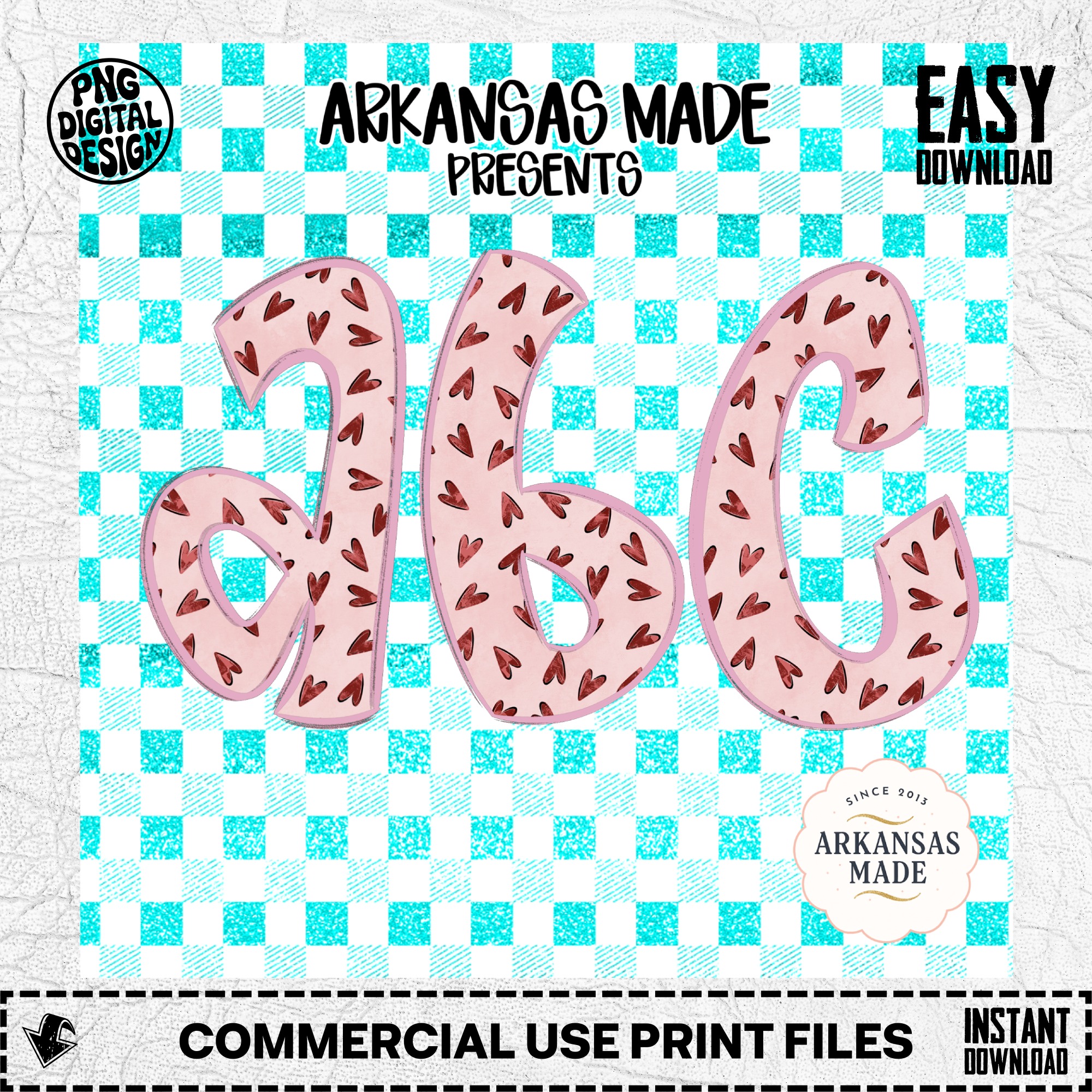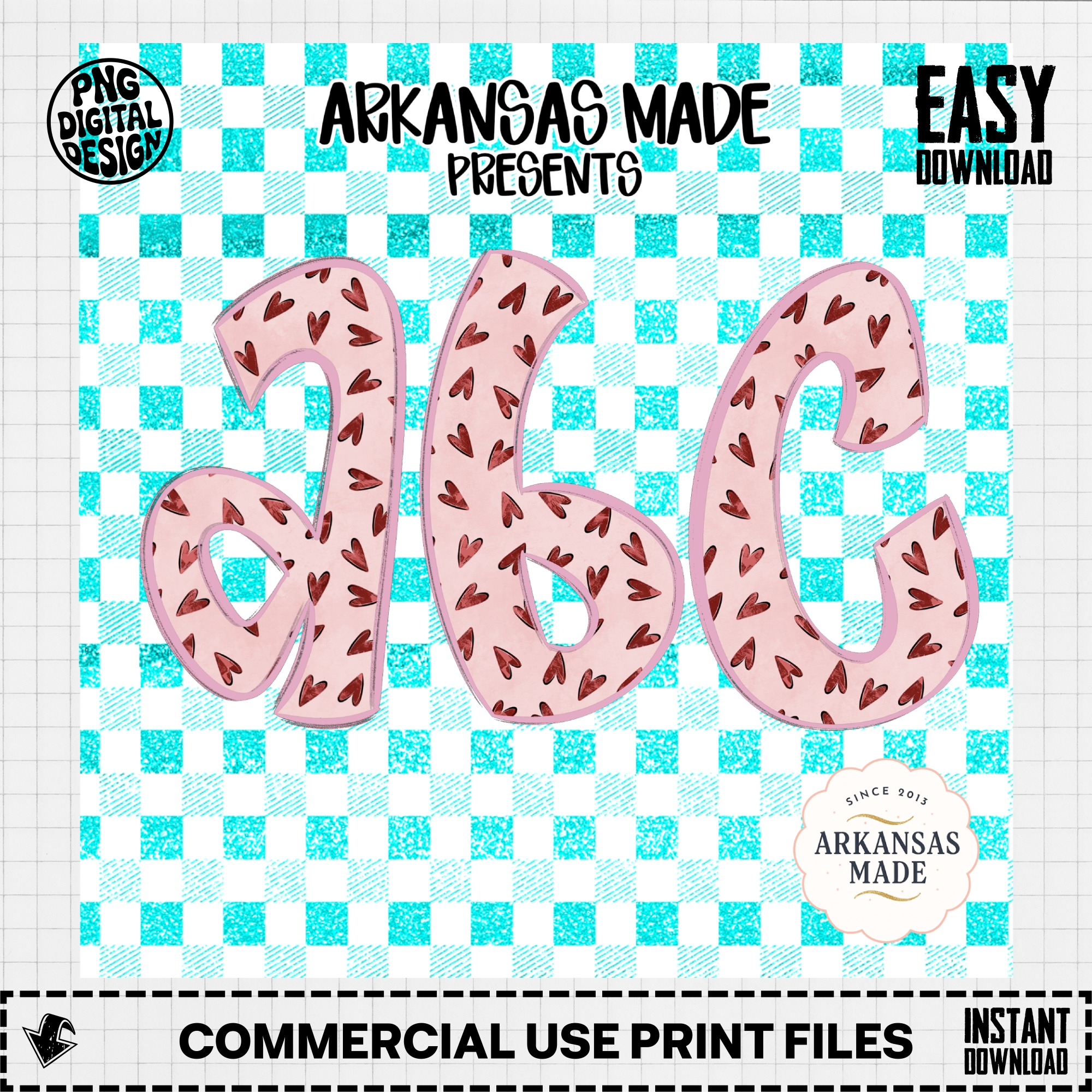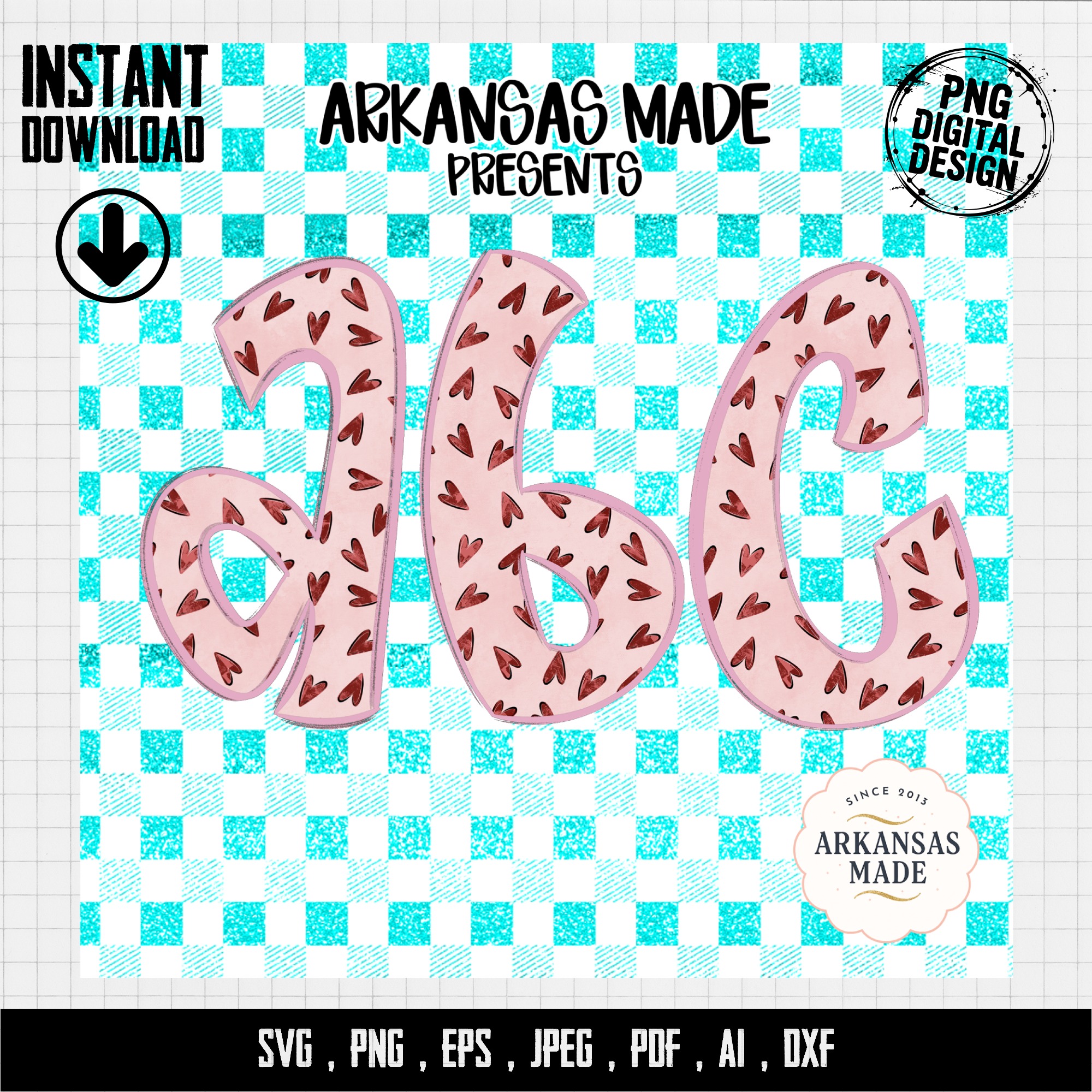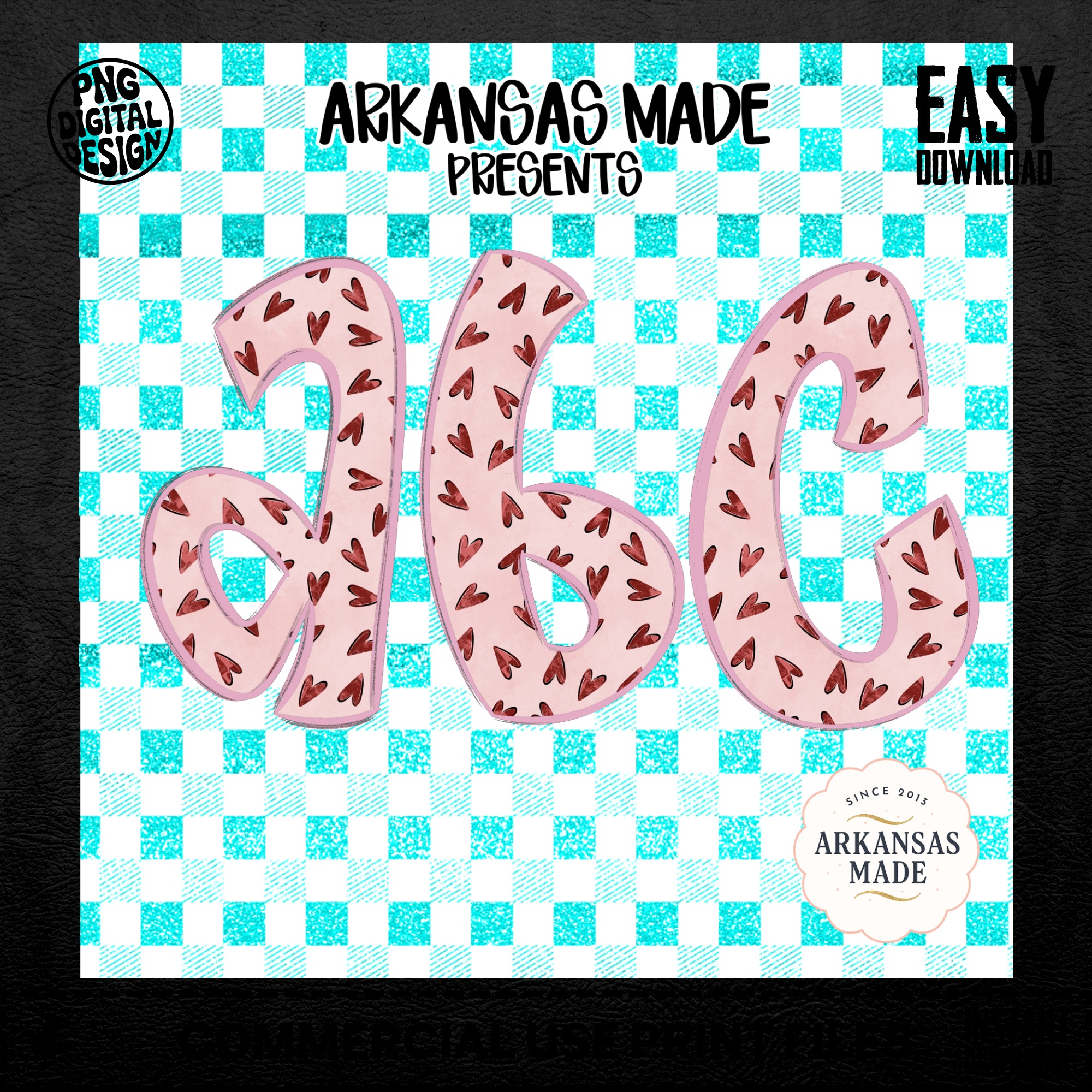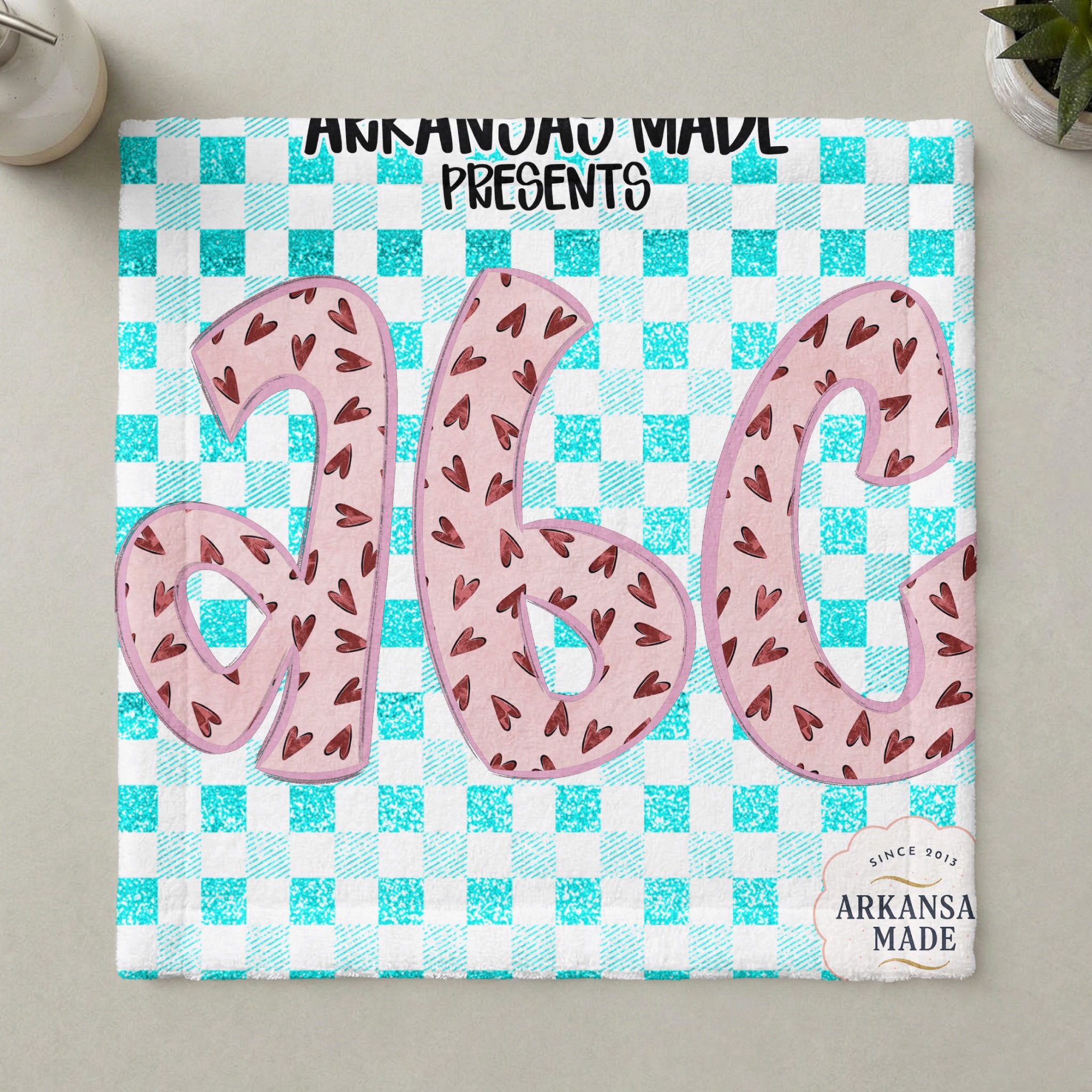
Unleash your creativity with our delightful Pink Hearts Aqua Checkered Digital Alphabet, a comprehensive collection designed to infuse your projects with charm and sparkle. This full A-Z Alpha set offers beautifully distressed pink letters, each adorned with sweet red hearts, all contrasted by a lively aqua and white glitter checkered background. It’s the perfect Digital Download for personalizing gifts, creating unique apparel, or enhancing your digital designs. Our Sublimation DTF PNGs are crafted for exceptional versatility and ease of use.